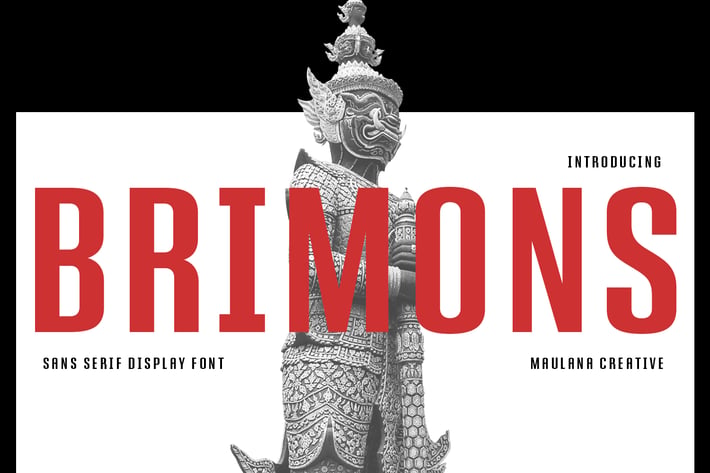
Brimons Sans Serif Display Font
Brimons is a condensed retro feel sans serif font. With medium low contrast stroke Caps and small caps, fun character with a bit of ligatures and alternates. To give you an extra creative work. Brimons font support multilingual more than 100+ language. This font is good for logo design, Social media, Movie Titles, Books Titles, a short text even a long text letter and good for your secondary text font with sans or serif. Make a stunning work with Brimons font.